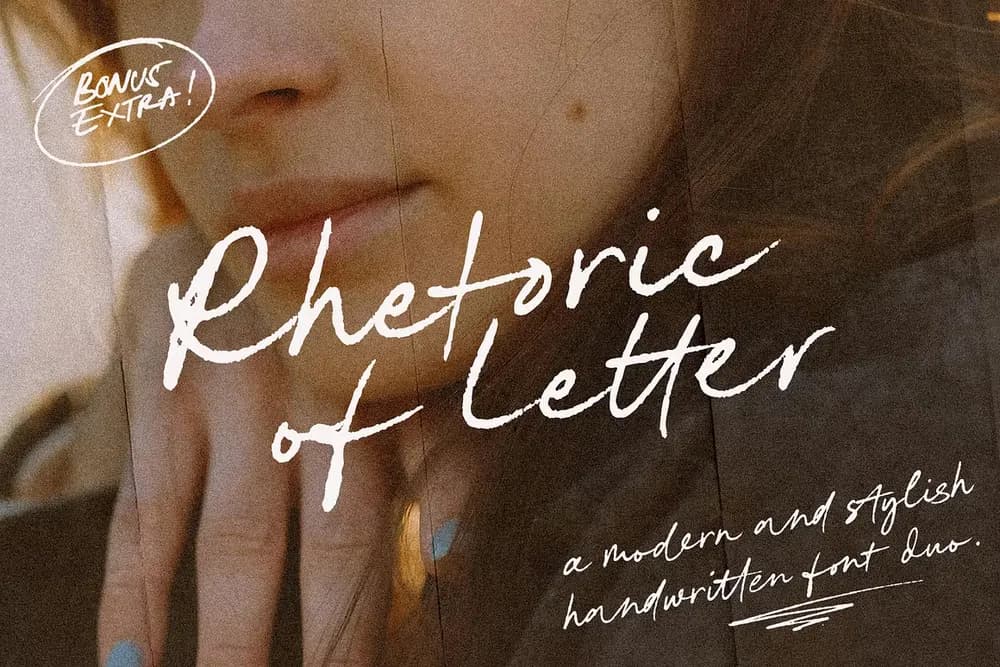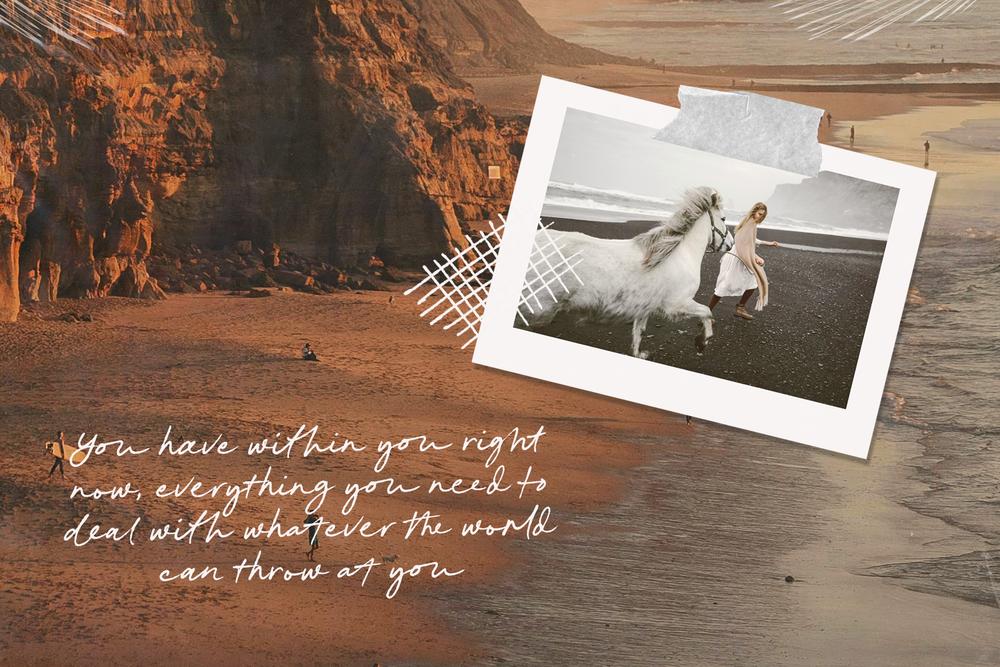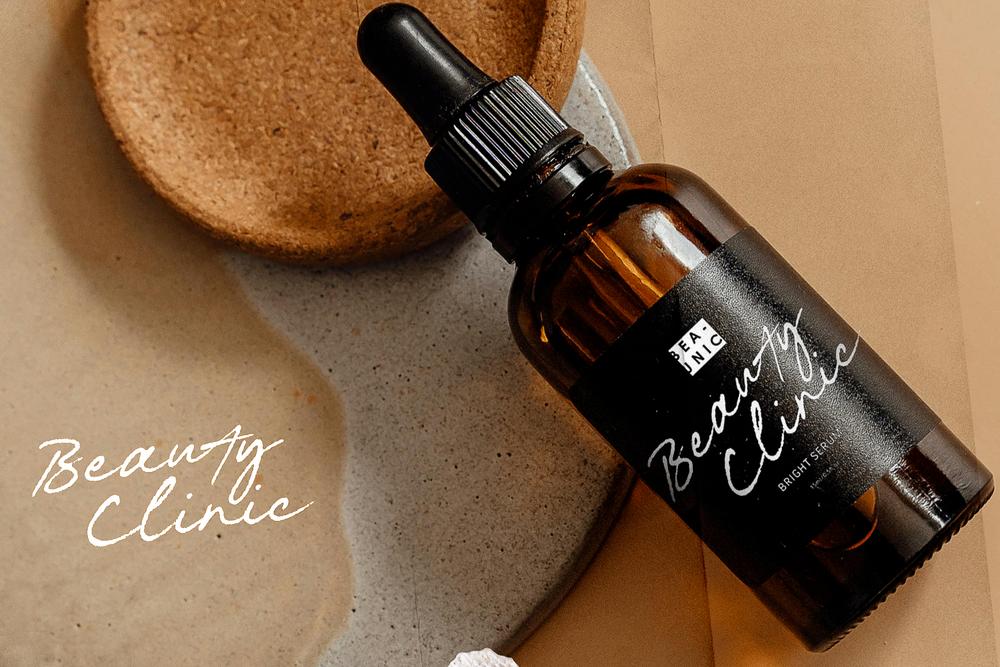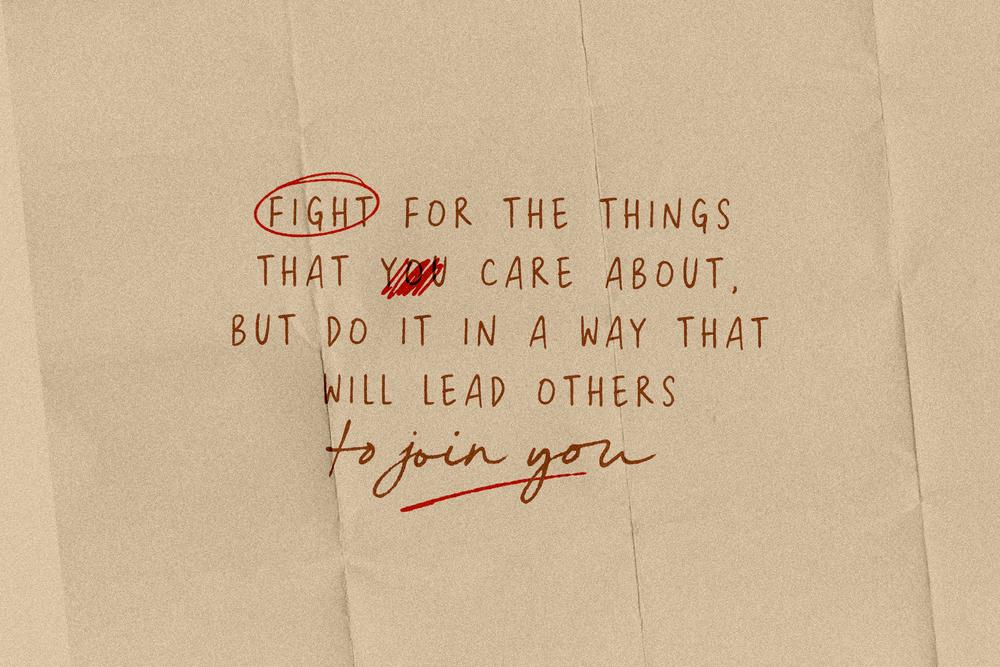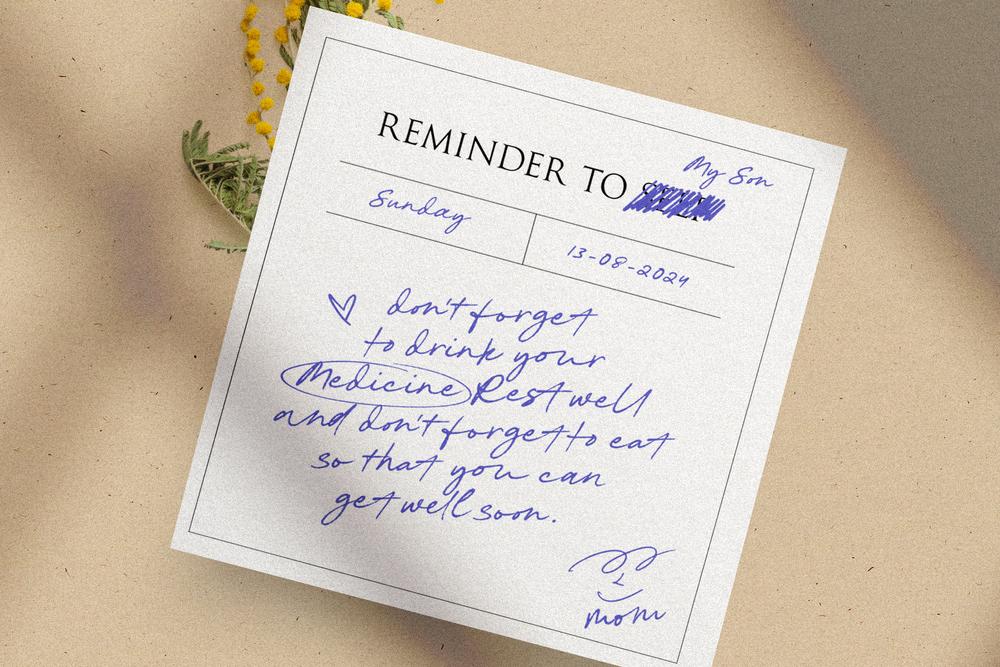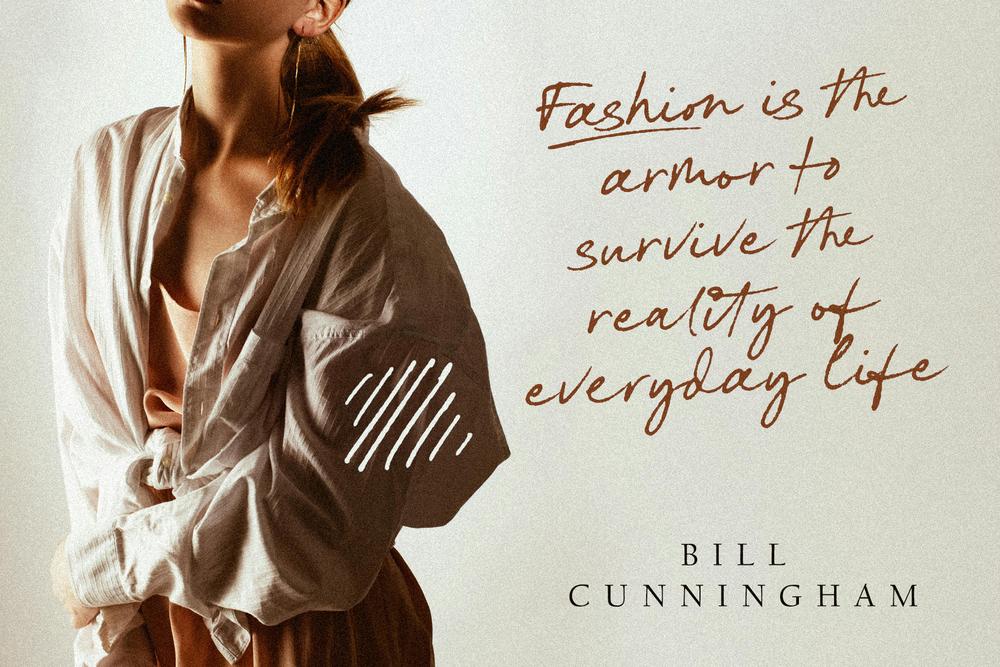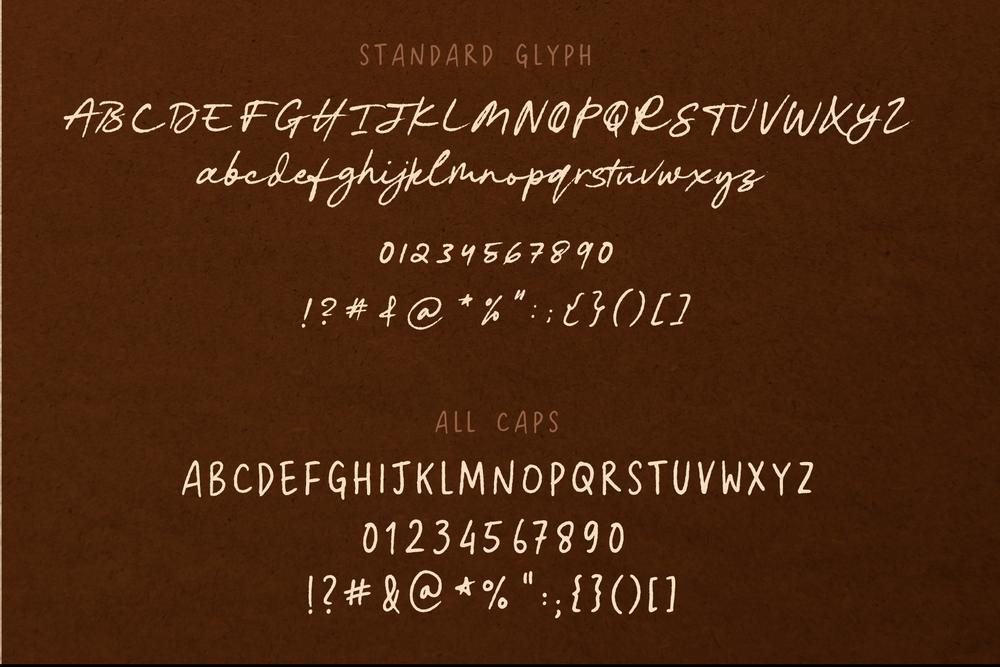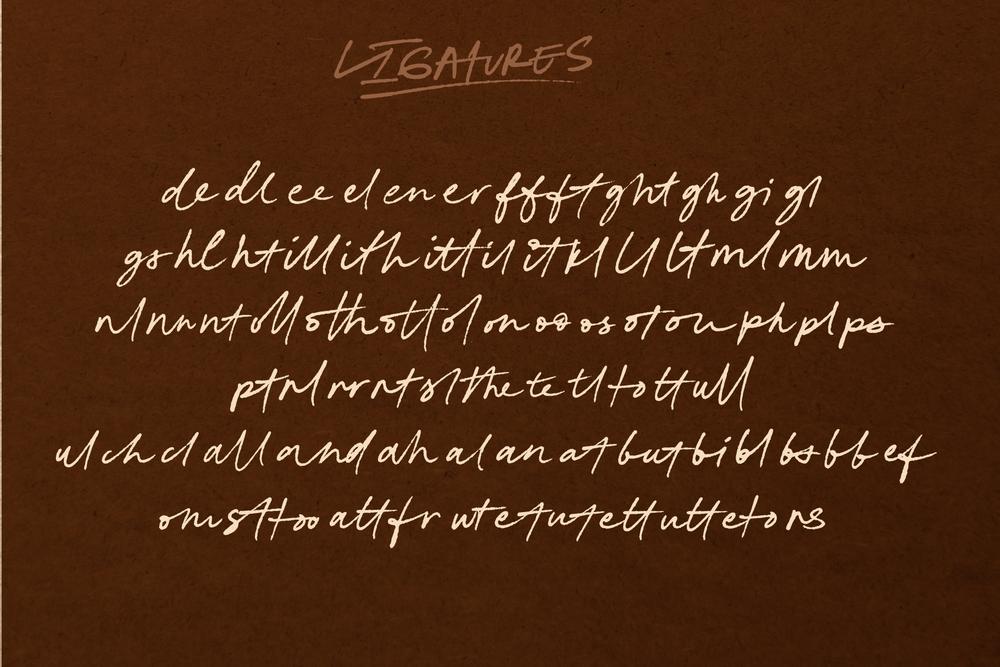
Rhetoric of letter a modern and stylish handwritten font. the font can be used for a variety of projects such as branding, labels, photography, invitations, stationery, wedding designs, social media posts, advertising, product packaging, product design Rhetoric of letter also include an all-caps version, great for combining with the regular font for adding emphasis to words, or even as it's own standalone font 𝑾𝒉𝒂𝒕 𝒚𝒐𝒖’𝒍𝒍 𝒈𝒆𝒕 ✎ OTF, TTF, WOFF, WOFF2 ✎ Stylish ligatures ✎ Works on PC & Mac ✎ Simple installations ✎ Fonts include multilingual support ✎ Rhetoric Script ✎ Rhetoric Caps ✎ EXTRA 𝐅𝐨𝐫𝐦𝐚𝐭 : OTF, TTF, and WOFF. Feel free to give me a message if you have a problem or question. Hope you enjoy our font, thank you!